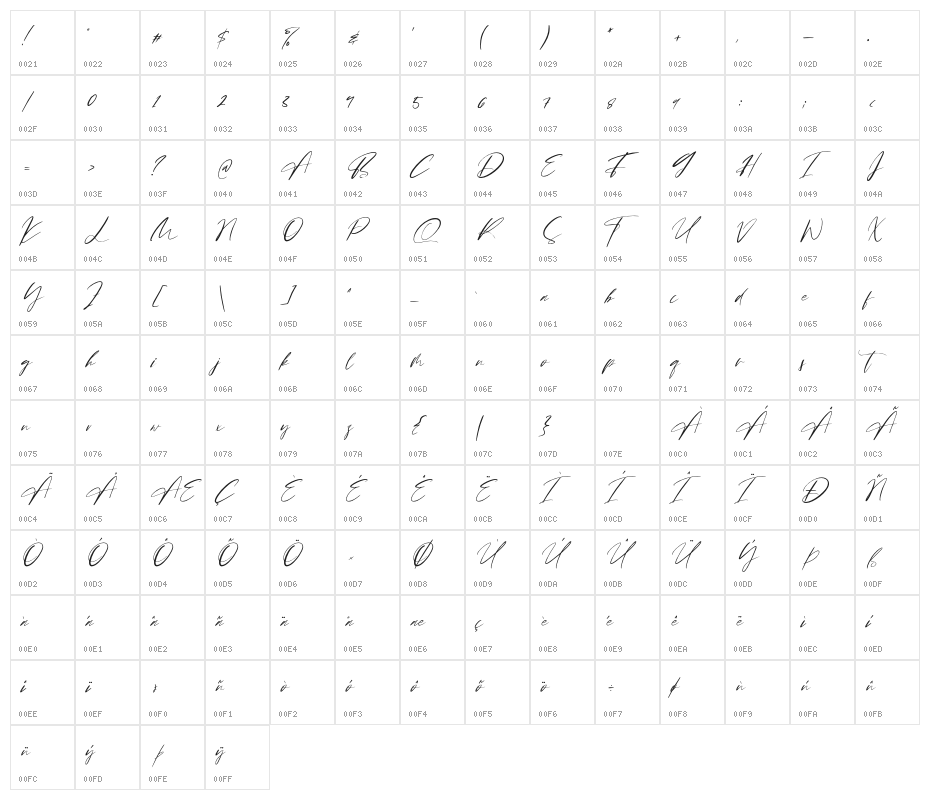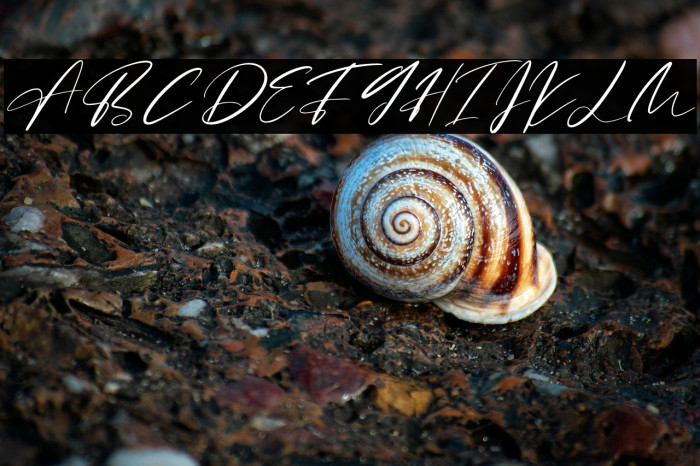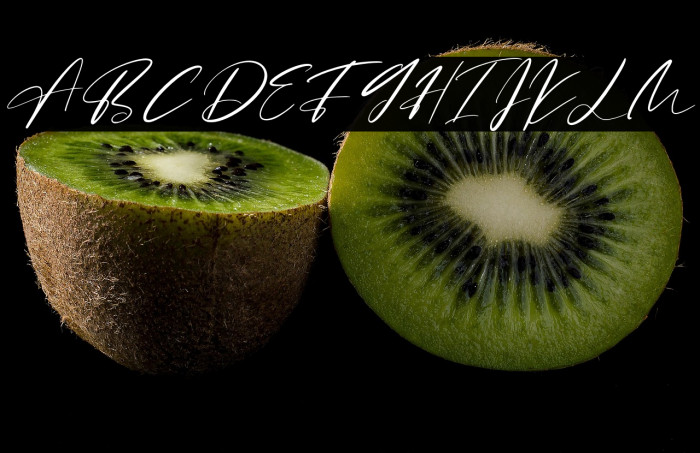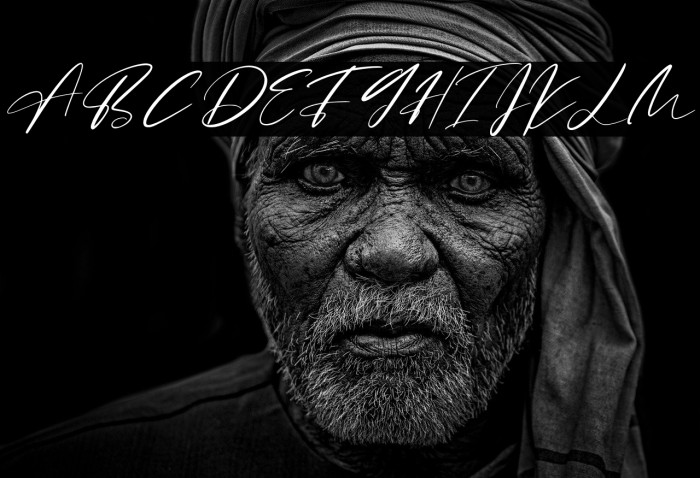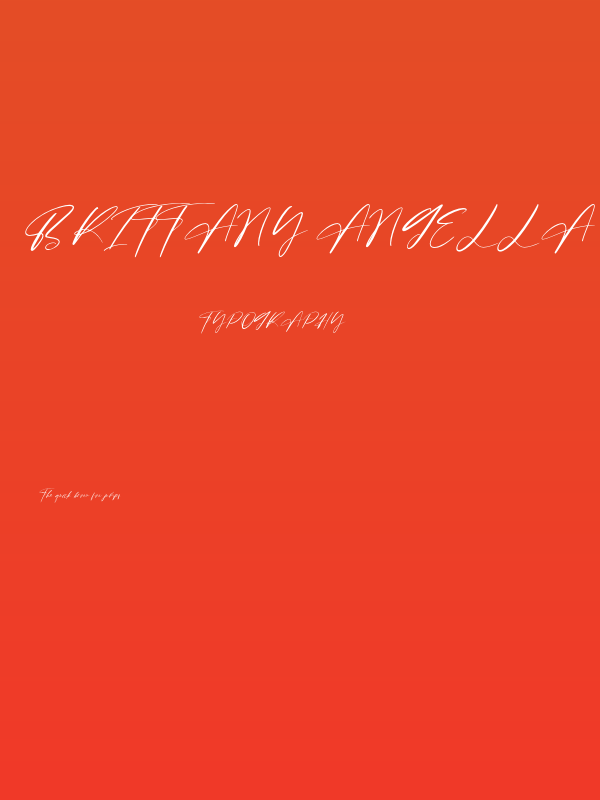
Brittany Angella Font
Brittany Angella Description
This font exudes elegance and sophistication with its fluid, cursive style. The letters are crafted with graceful, sweeping strokes that mimic the flow of handwritten script. Each character is distinct yet harmonizes beautifully with the others, creating a seamless and artistic appearance. The uppercase letters are particularly ornate, featuring dramatic flourishes and loops, while the lowercase letters maintain a more subtle elegance. The numerals and special characters are consistent with the overall style, ensuring a cohesive look across all text. This font is perfect for projects that require a touch of class and refinement.
| Overall Style | Elegant, Artistic |